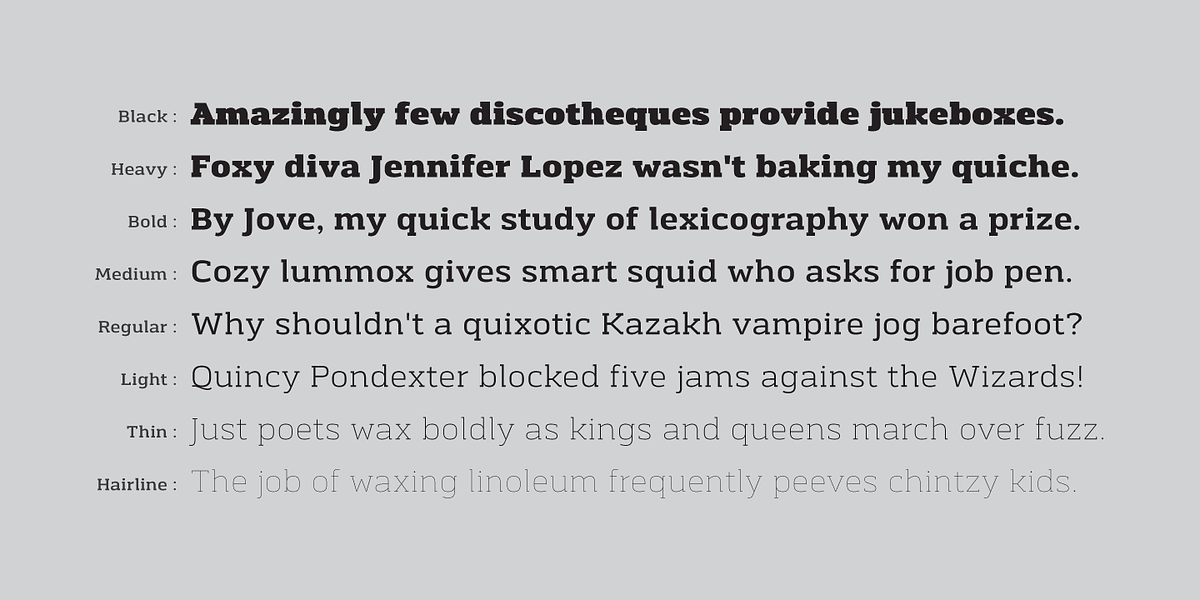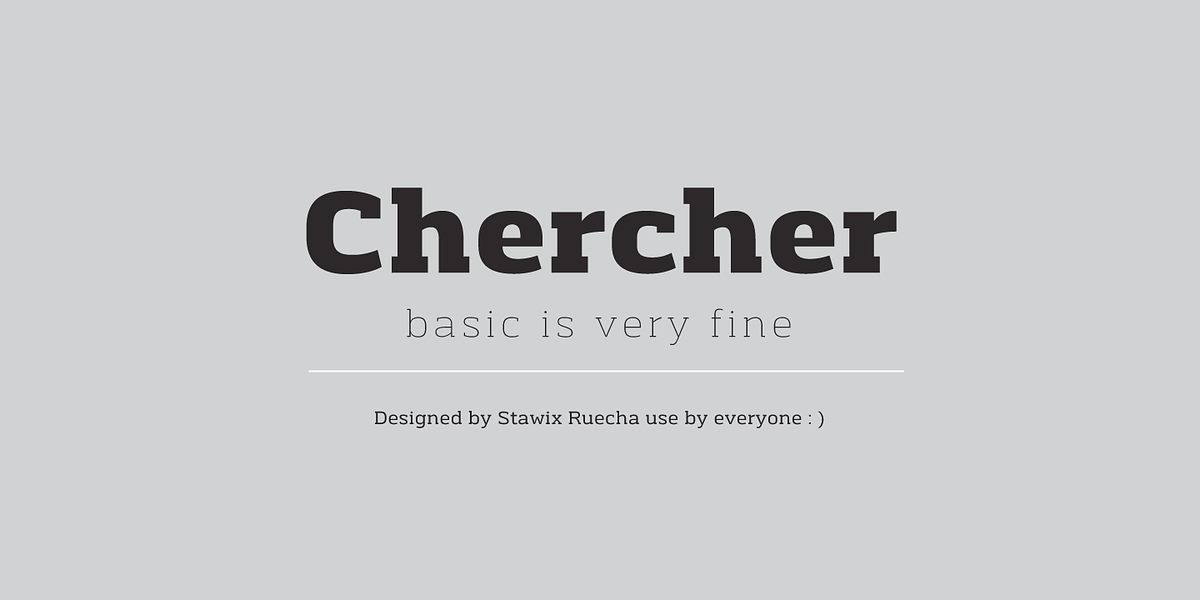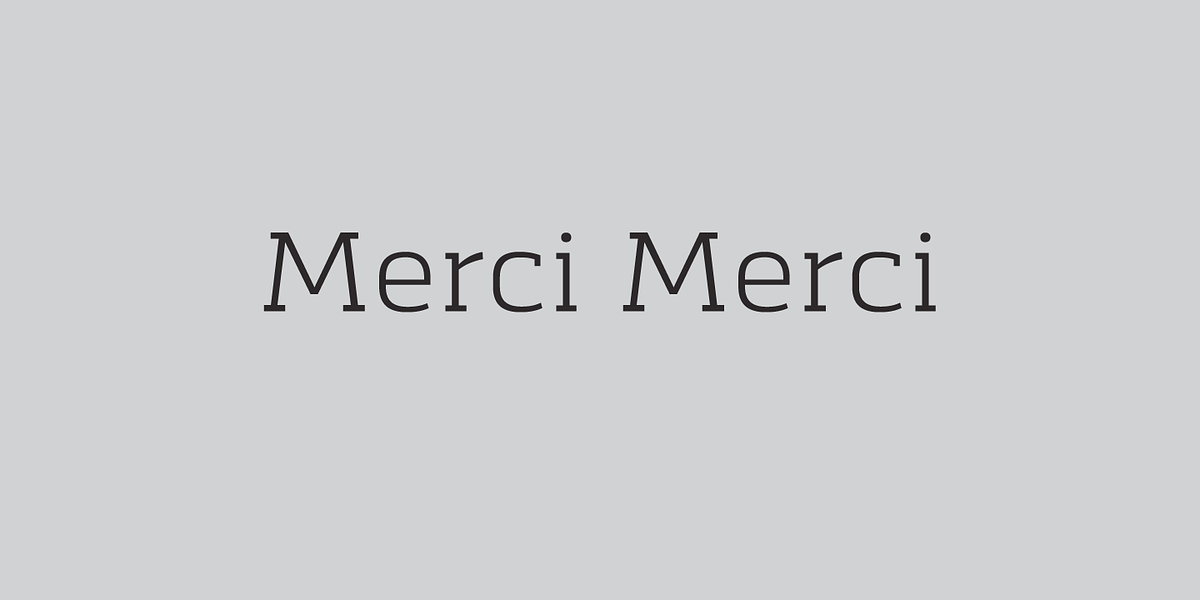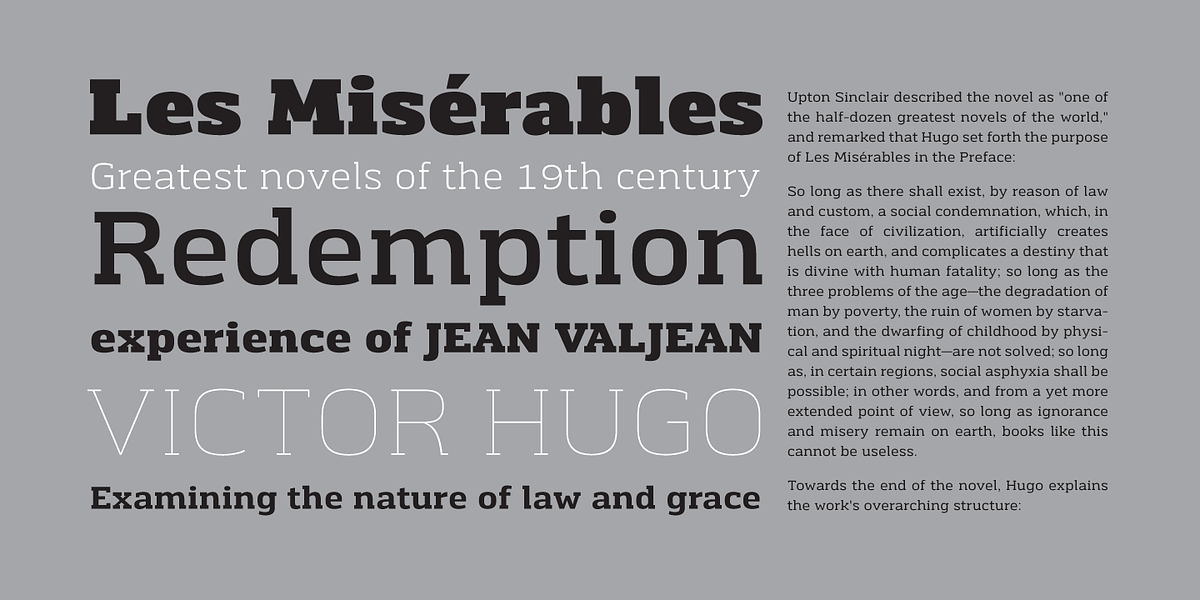
Chercher
Chercher Slab Serif is a straightforward, versatile font designed by Stawix Ruecha. Its square slab serif design gives it a clean and modern look. Available in 8 weights, Chercher is suitable for both headline and body text applications, making it a good choice for corporate branding and publications.